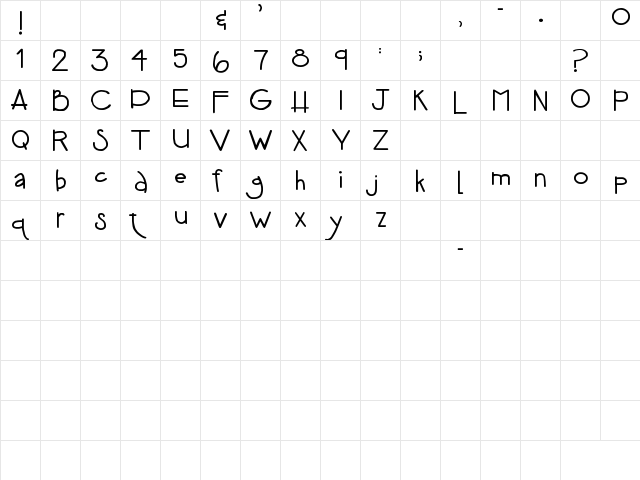
SP Spence Regular
Design Context for SP Spence Typeface
SP Spence is a composed and adaptable typeface that performs quietly and consistently across a wide range of design contexts.